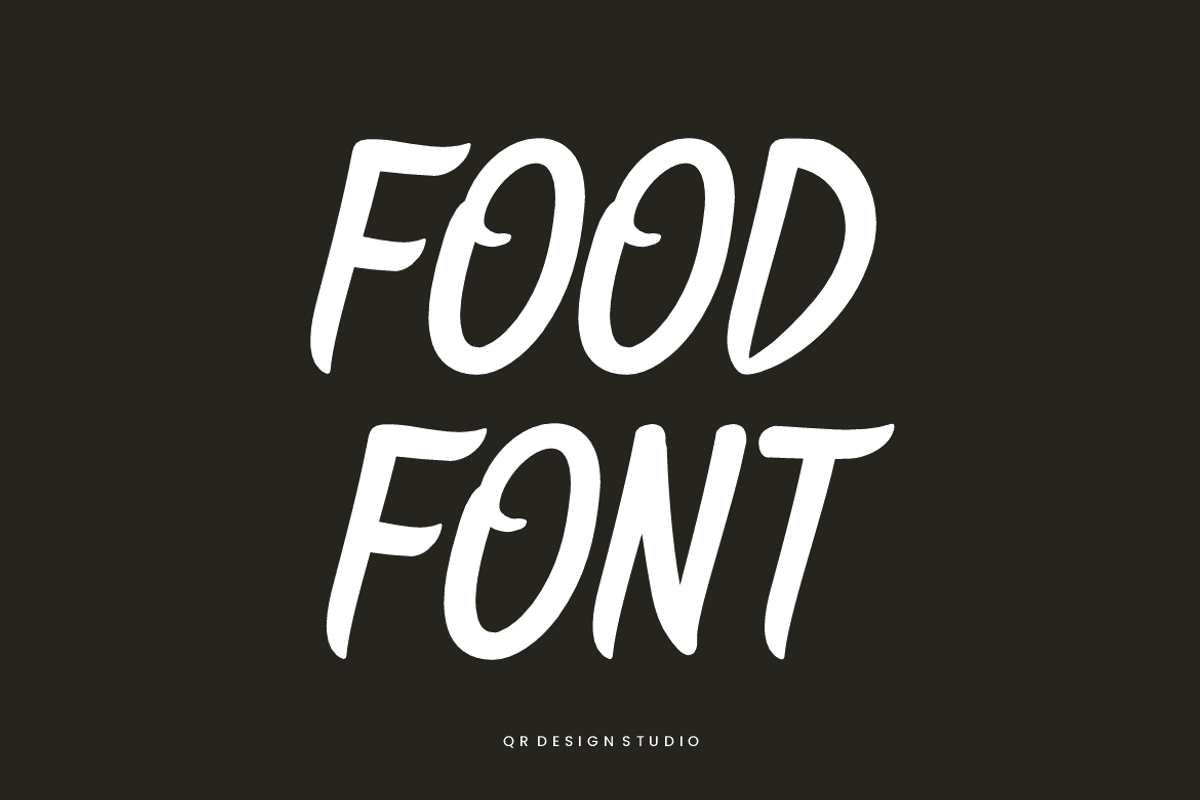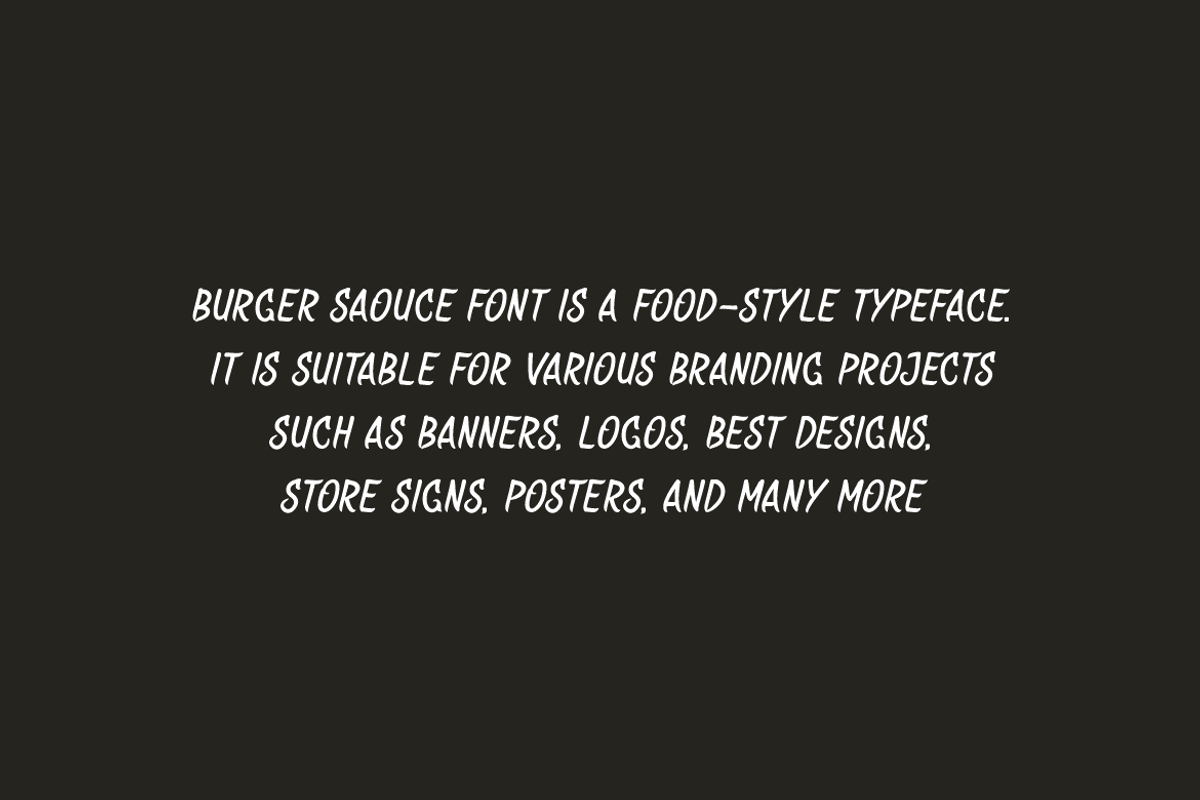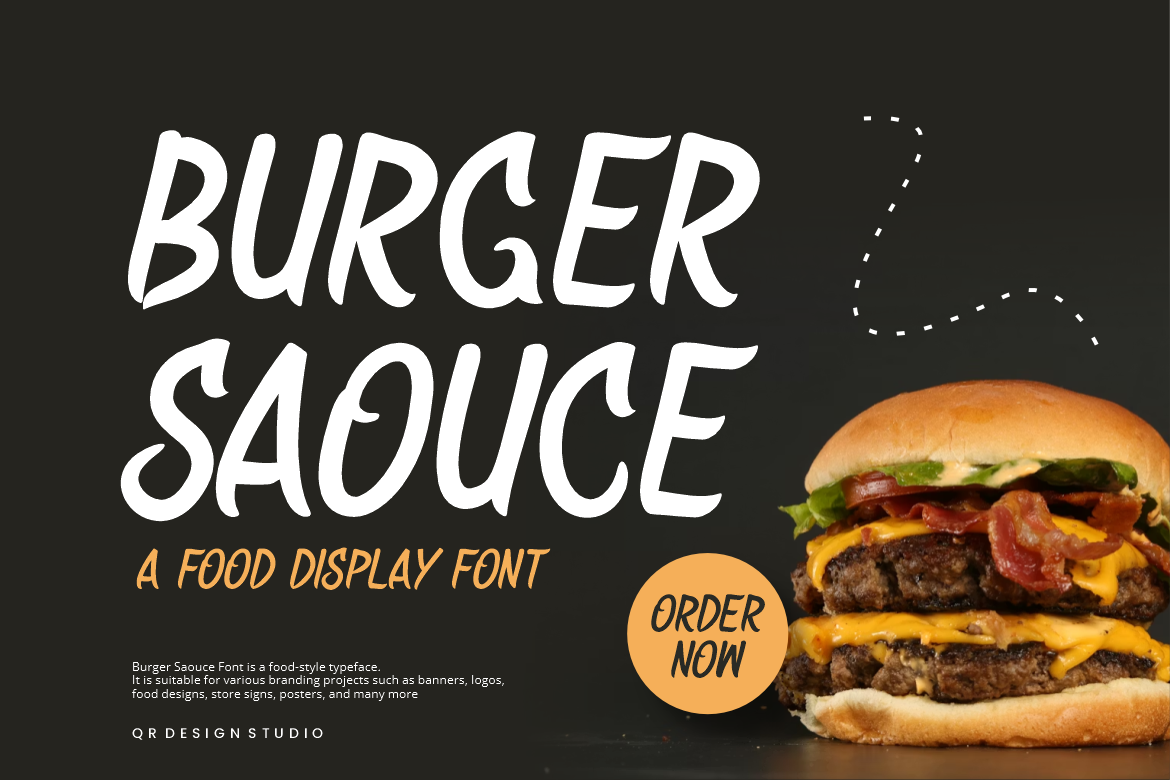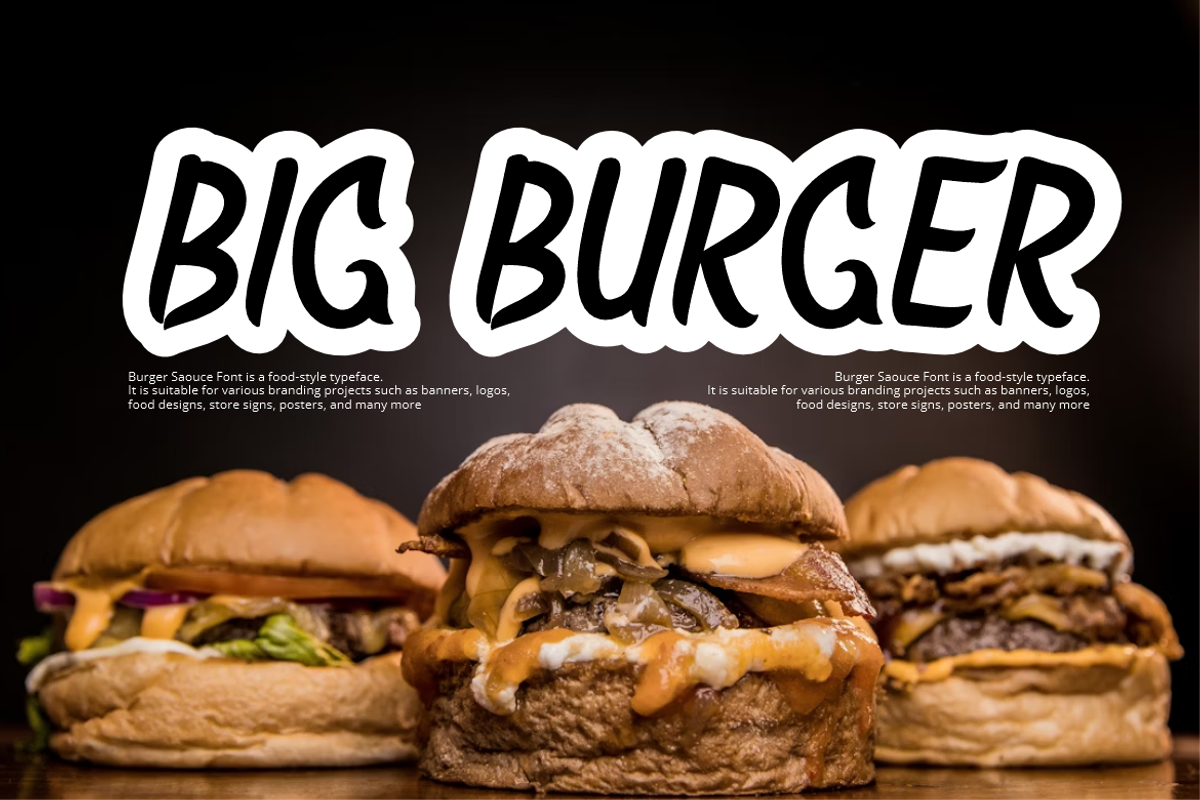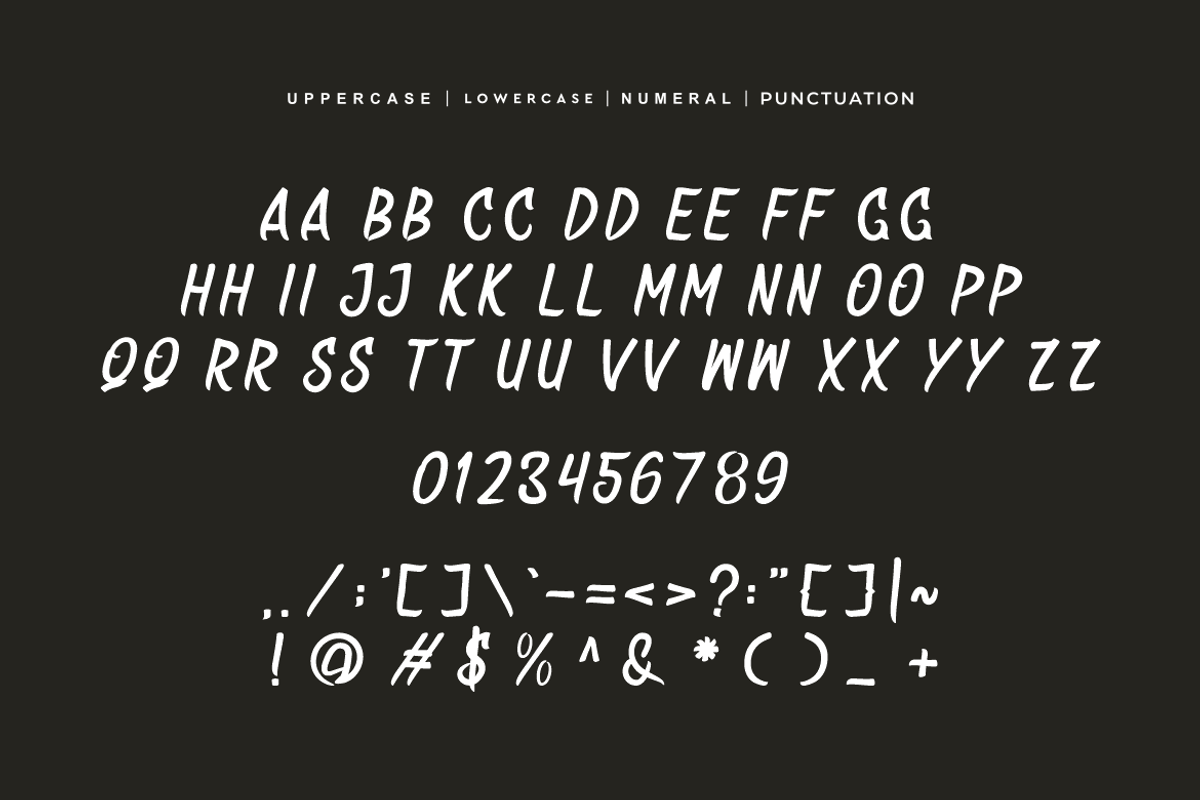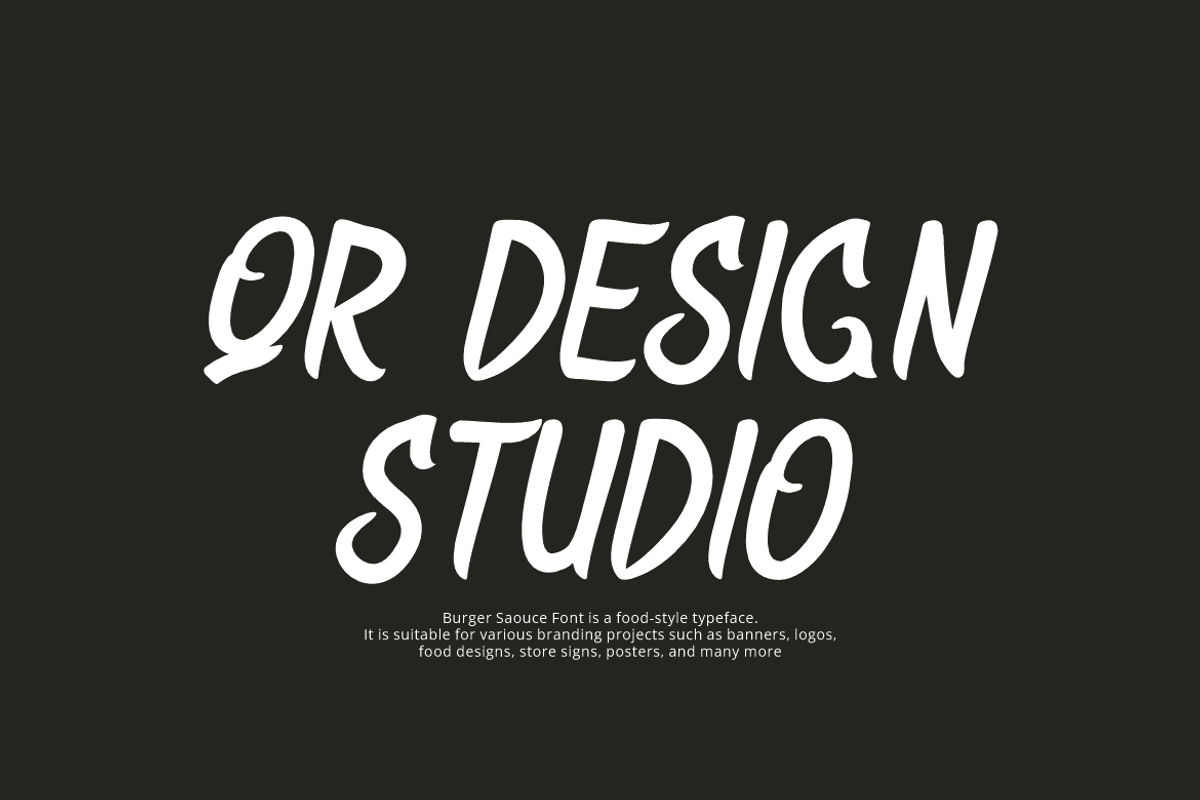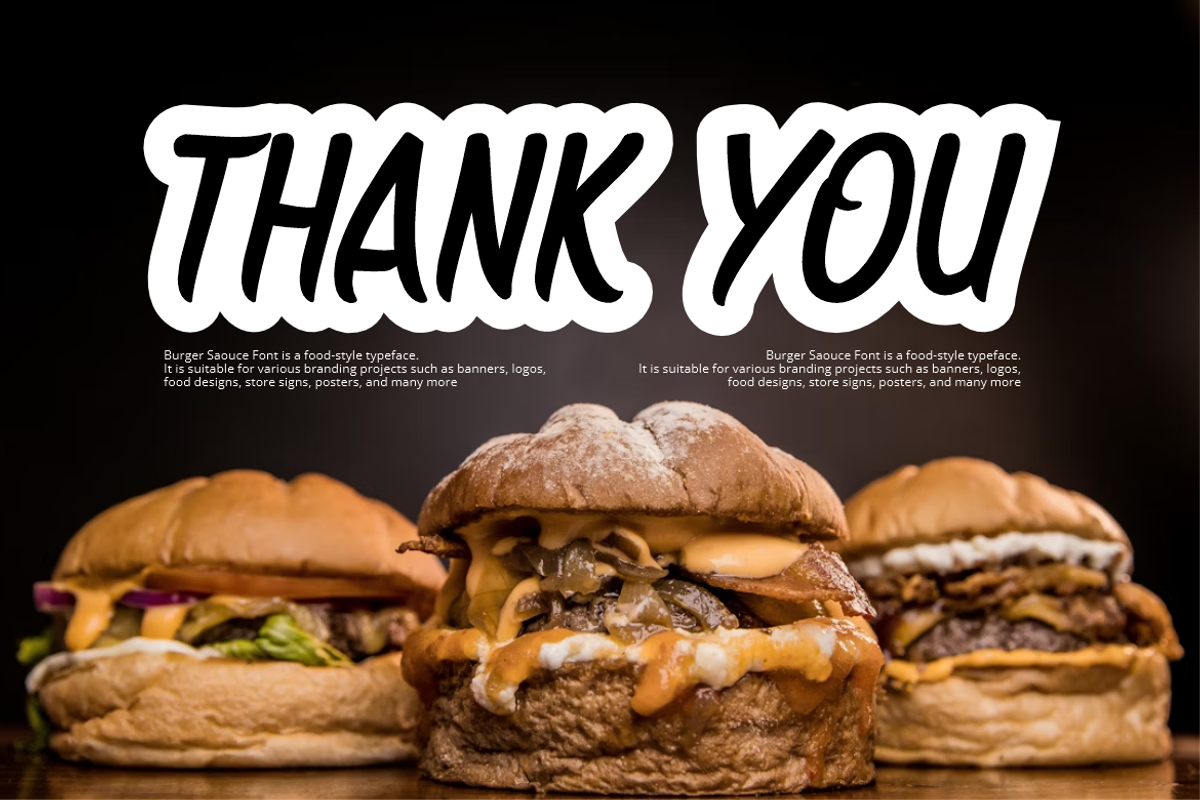
Burger Saouce - Food Font
Burger Saouce Font is a best and authentic display typeface. It’s perfect for various branding projects such as logos, food designs, and more. This font stands out beautifully in a wide range of contexts.